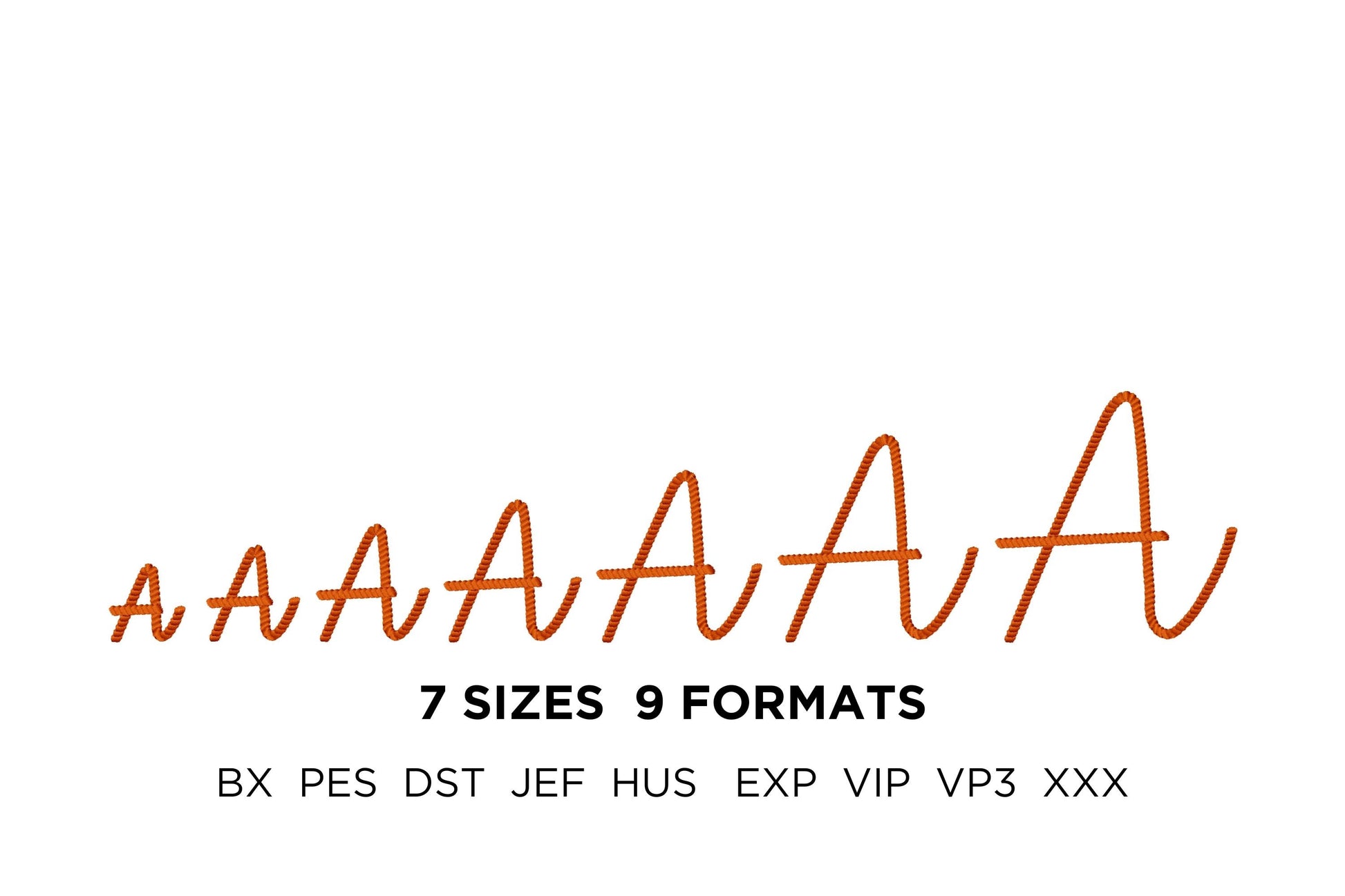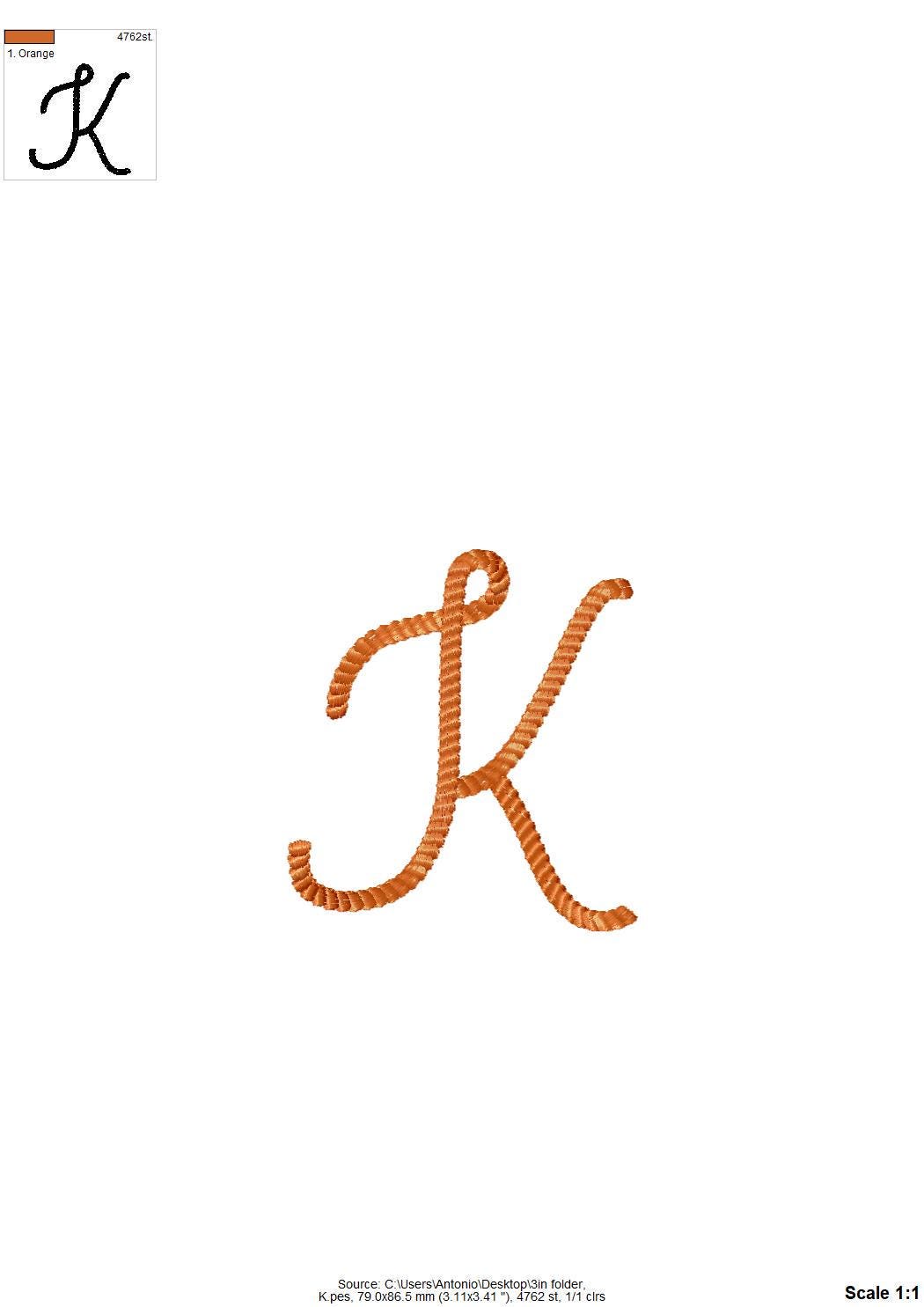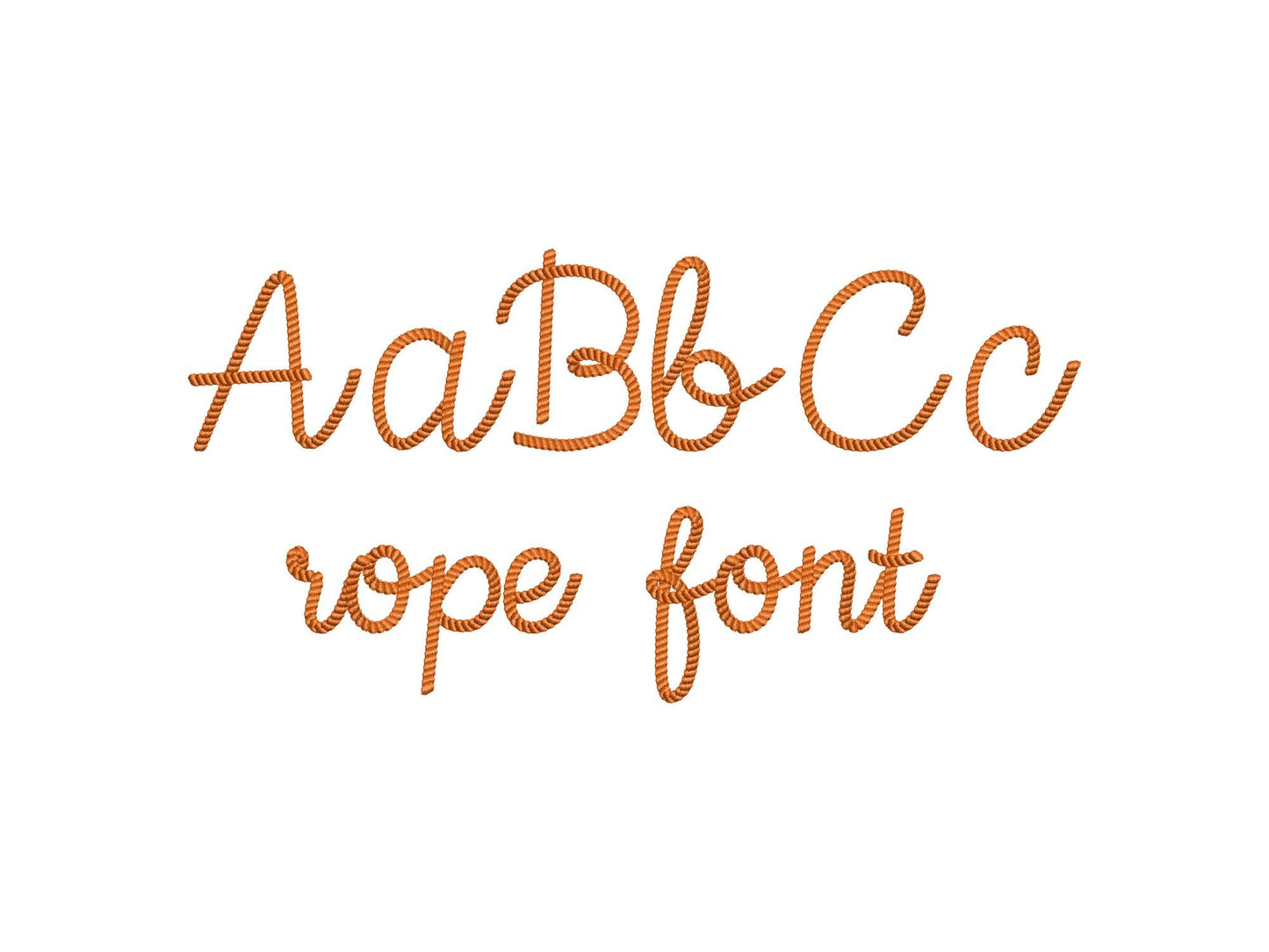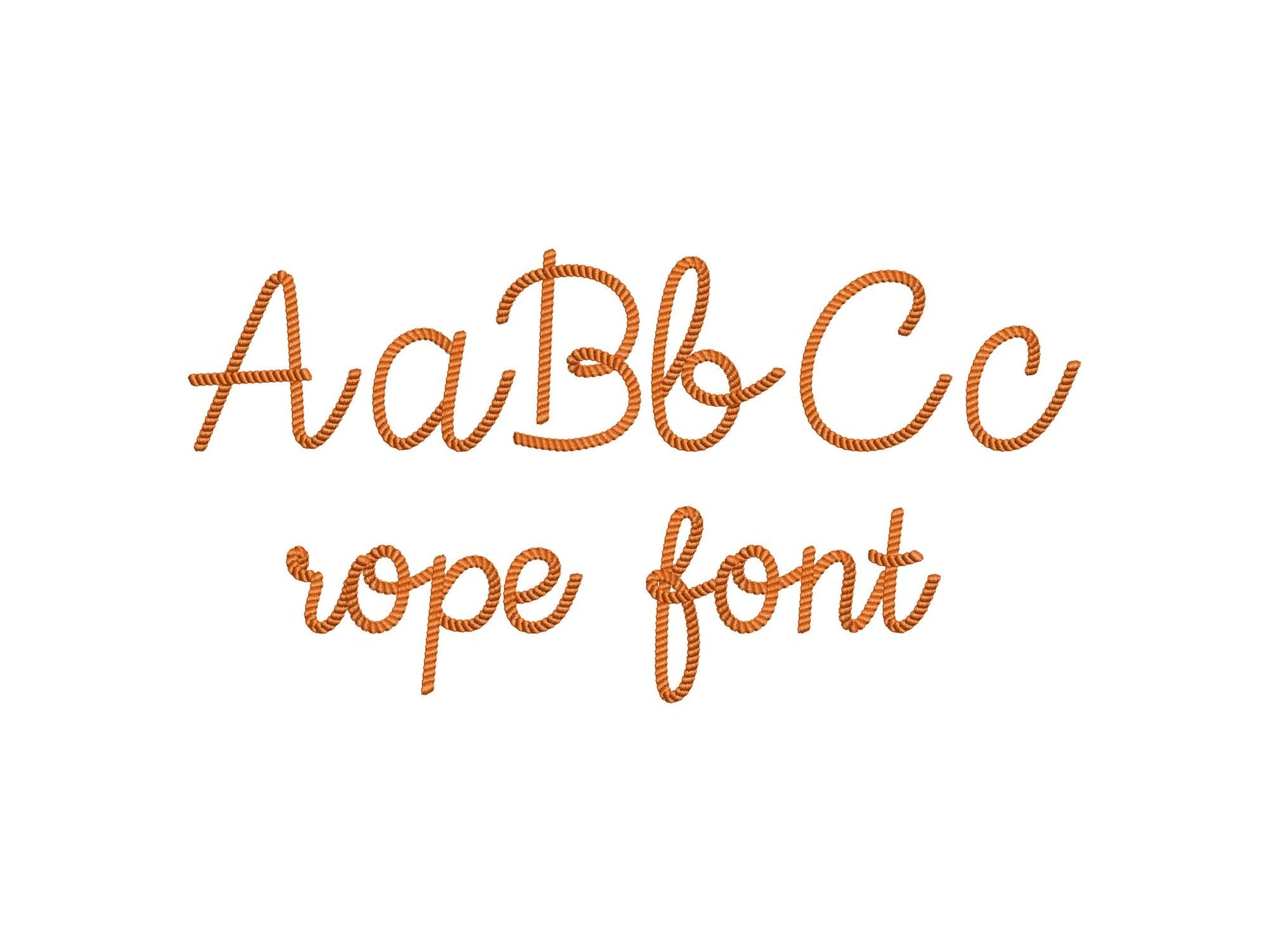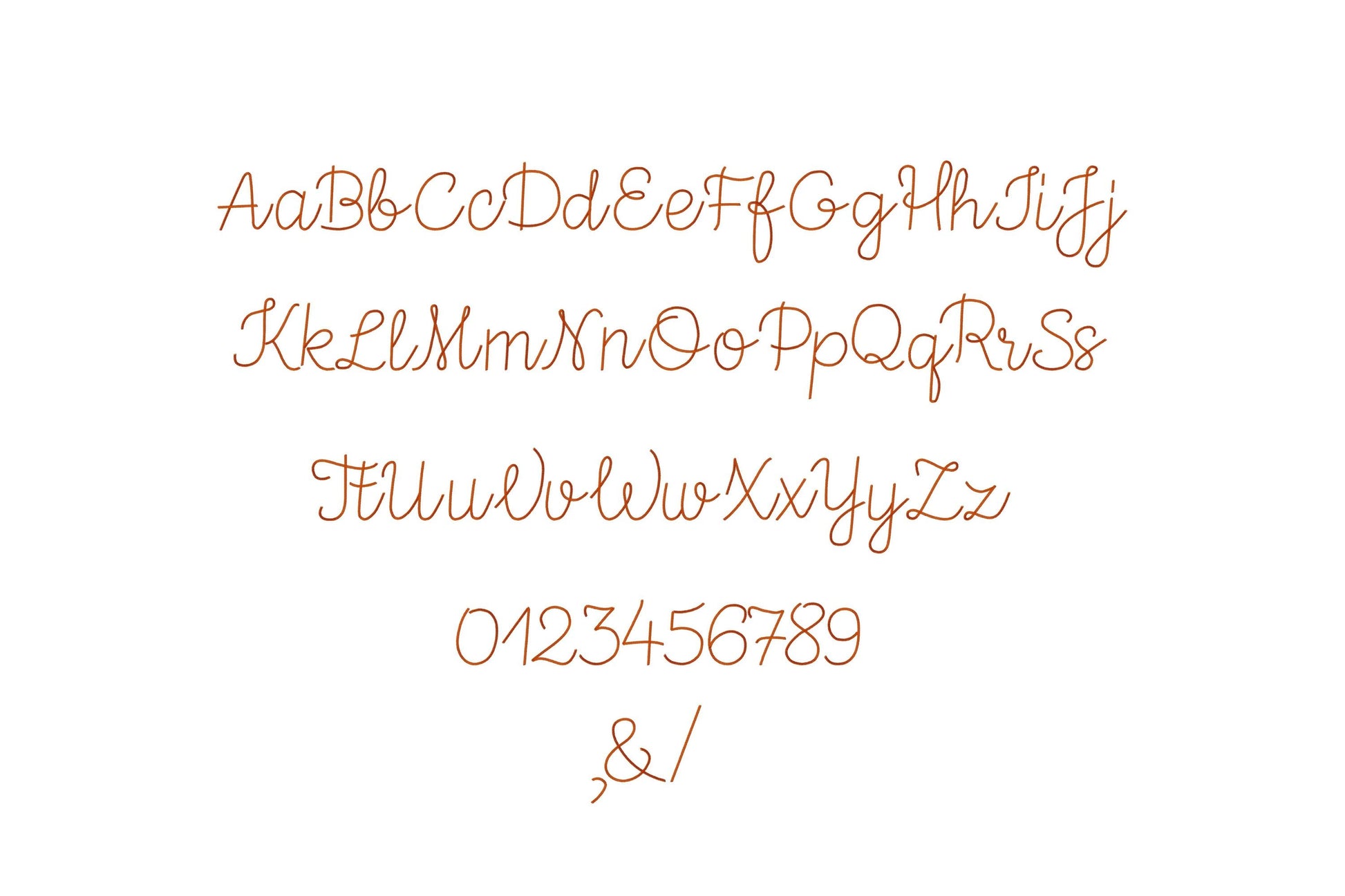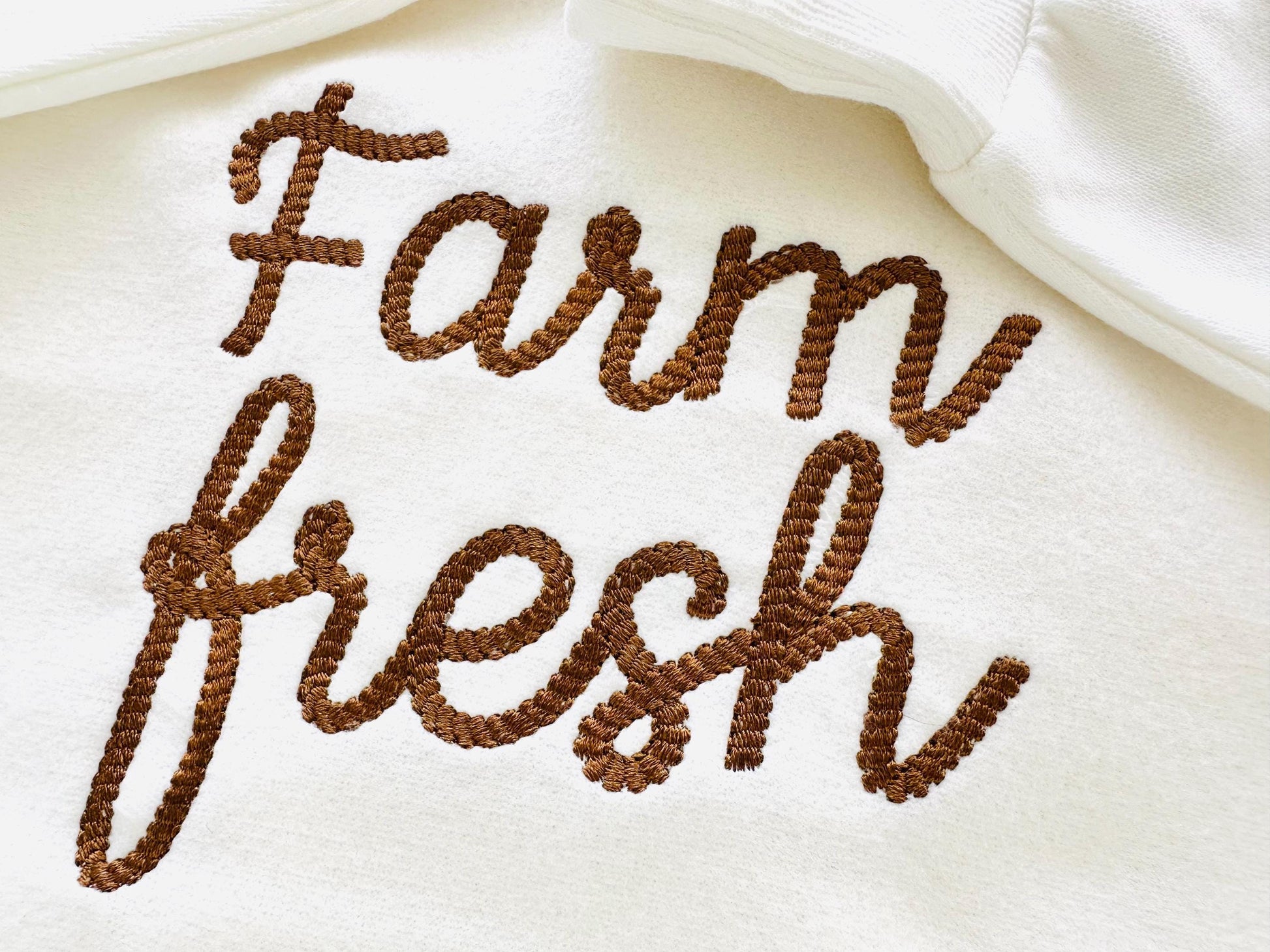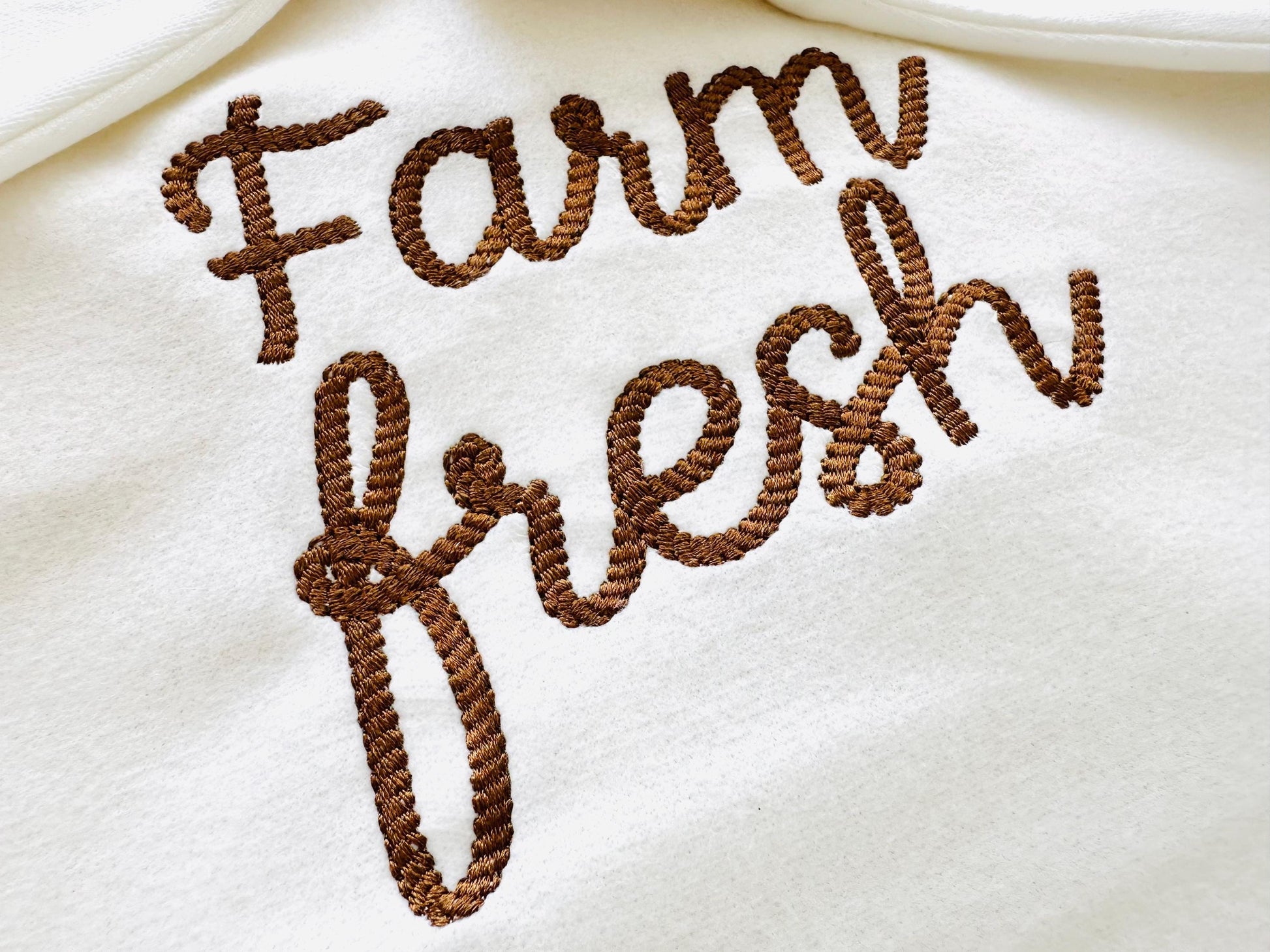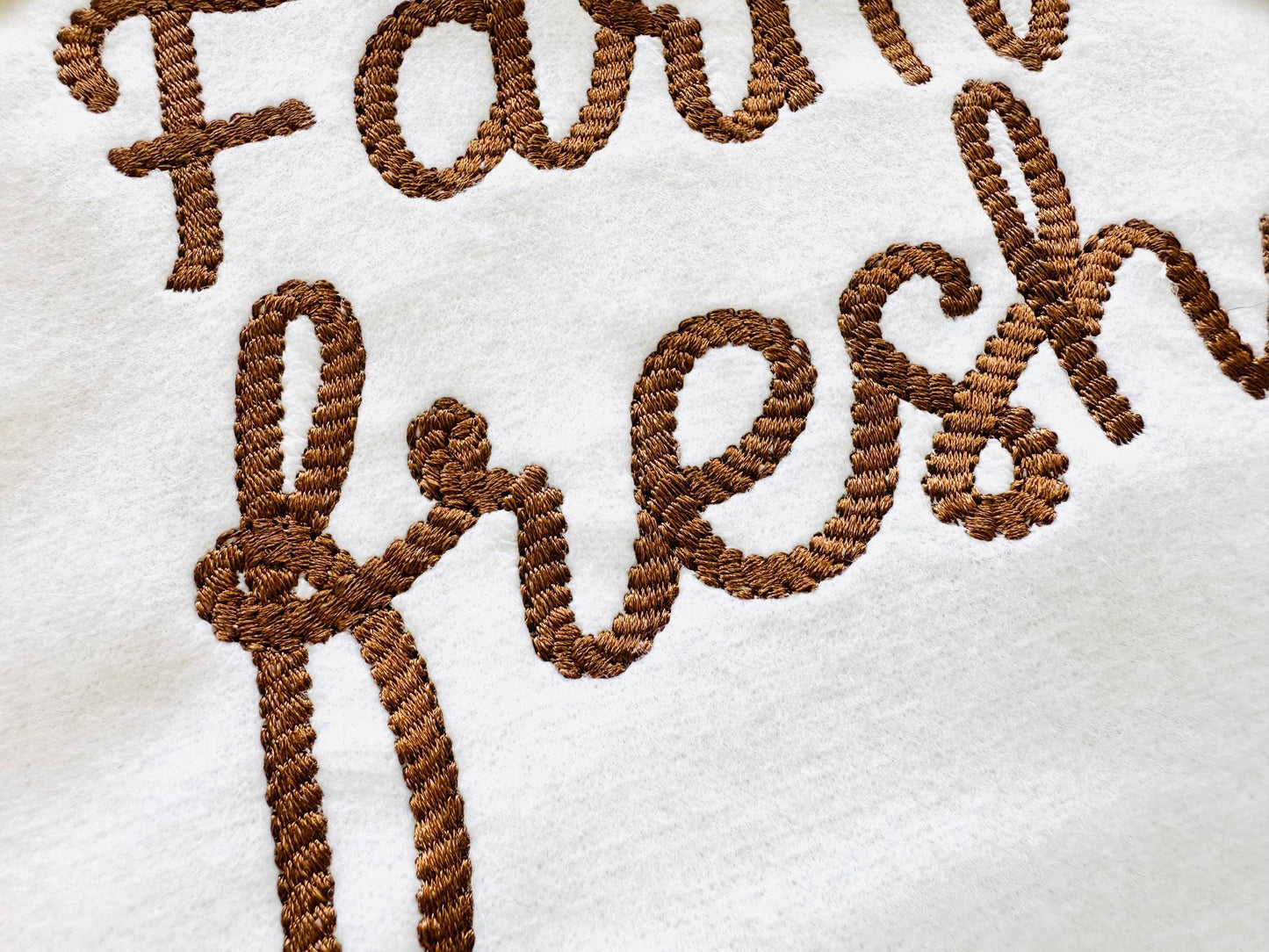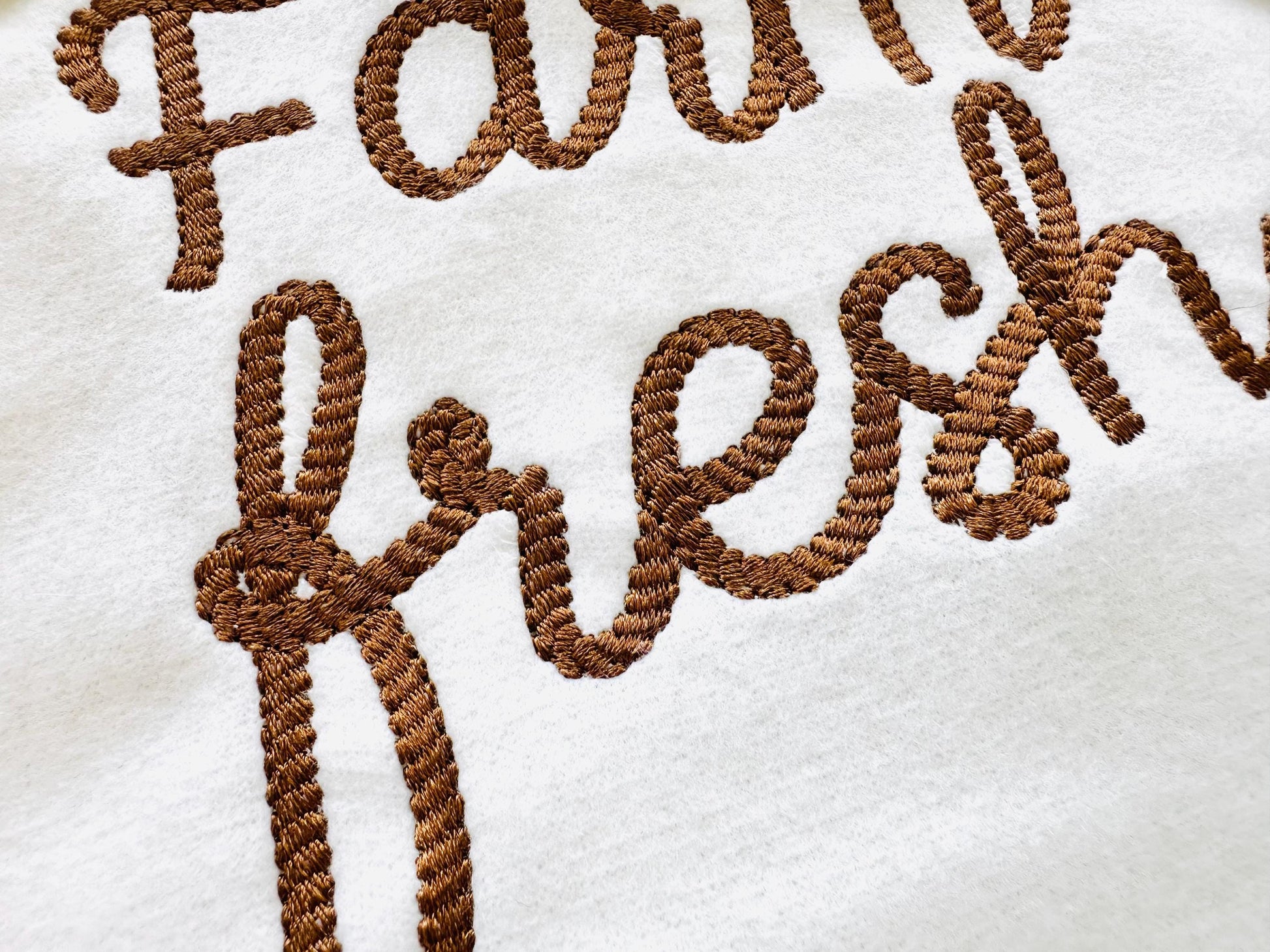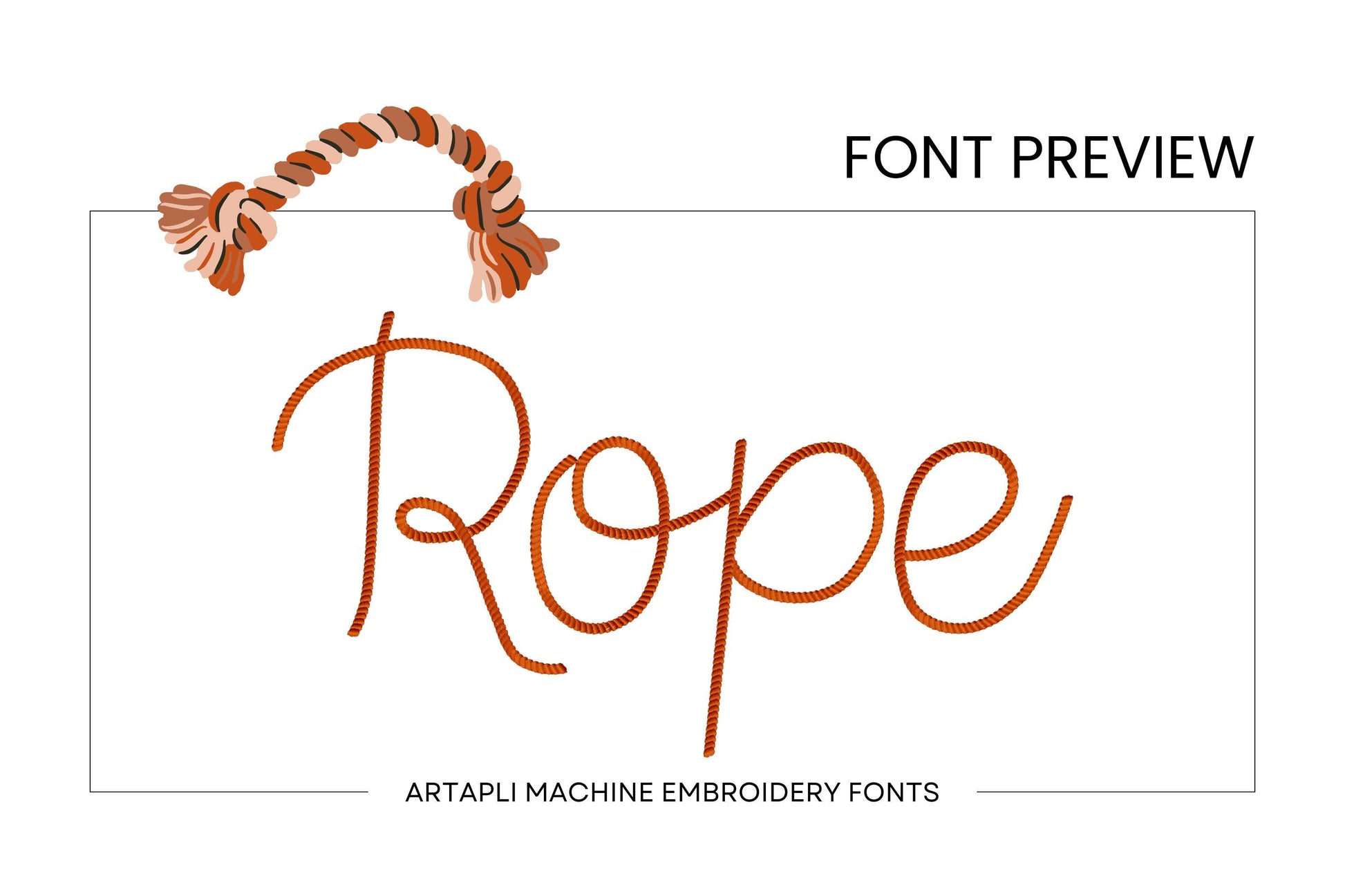
Or click to open the linkA handwritten rope stitch script with a rodeo look. Fun for cowboy and cowgirl shirts, farm themes and names.
Uppercase and lowercase letters, numbers 0 to 9, an ampersand, comma and slash, in seven sizes: 1.7, 2, 2.5, 3, 3.7, 4.5 and 5.4 inches.